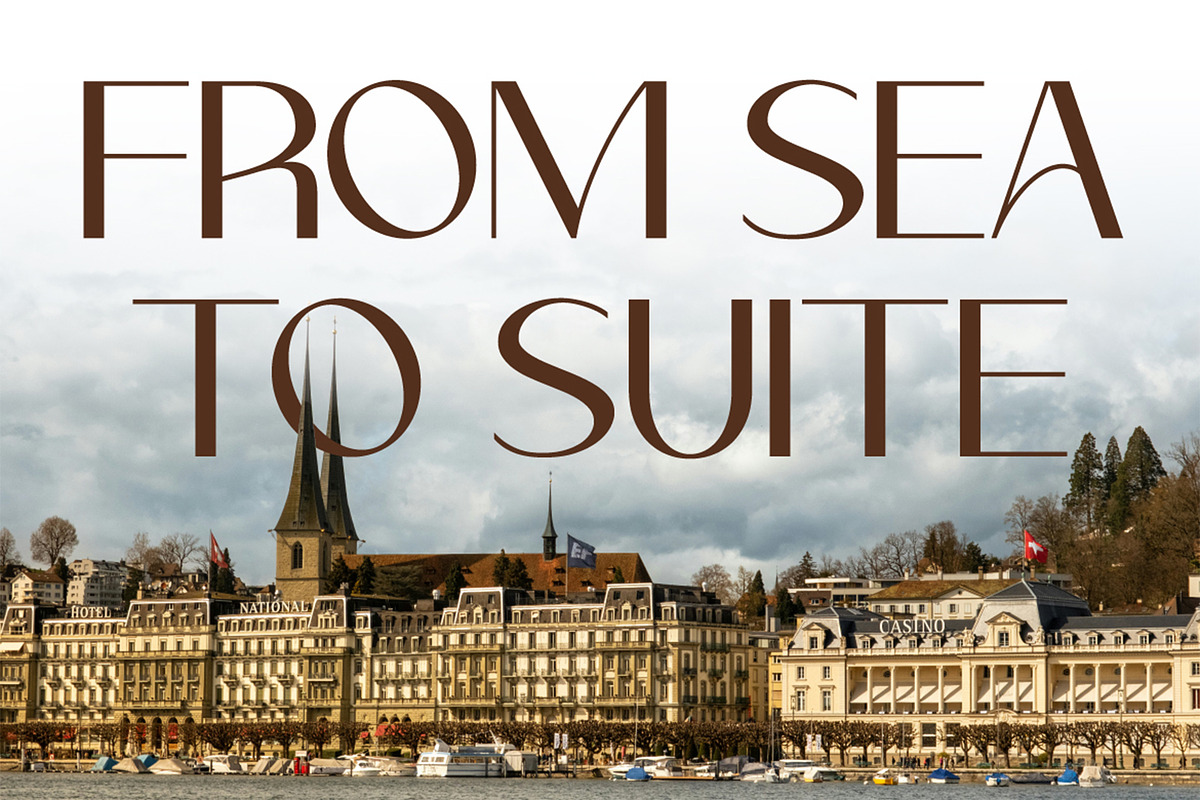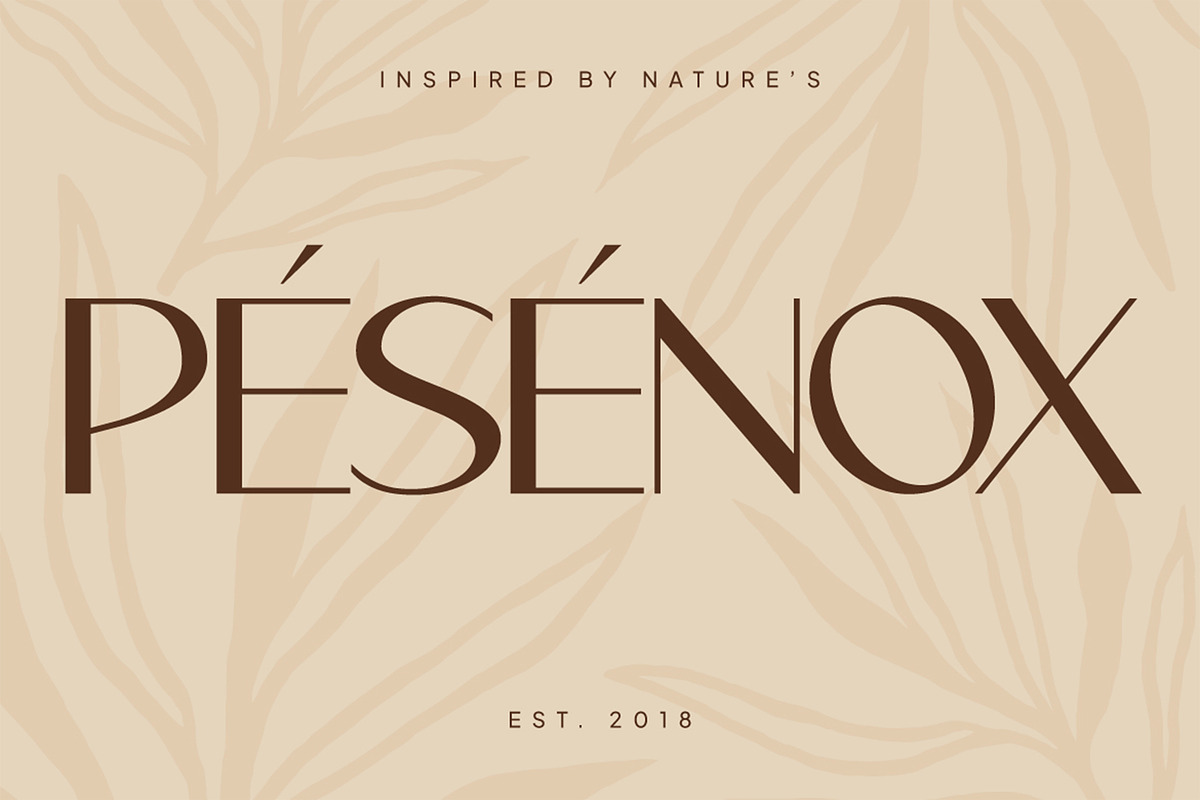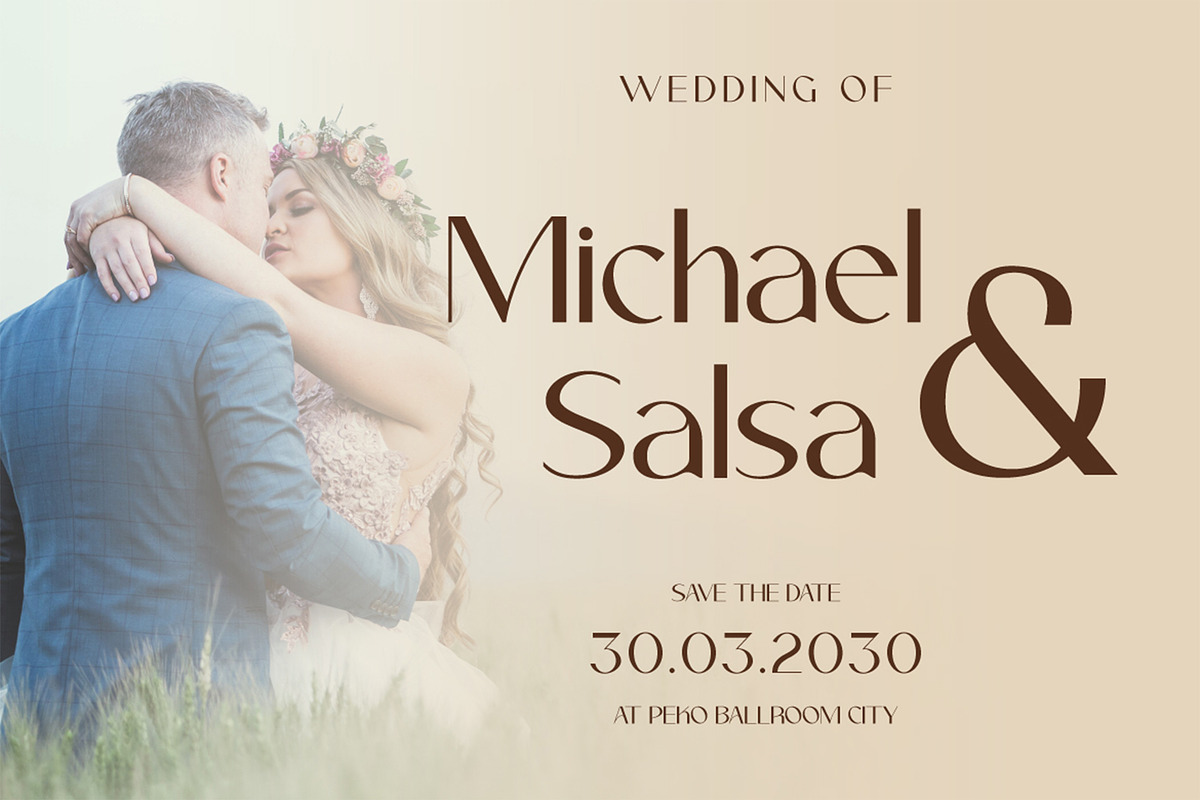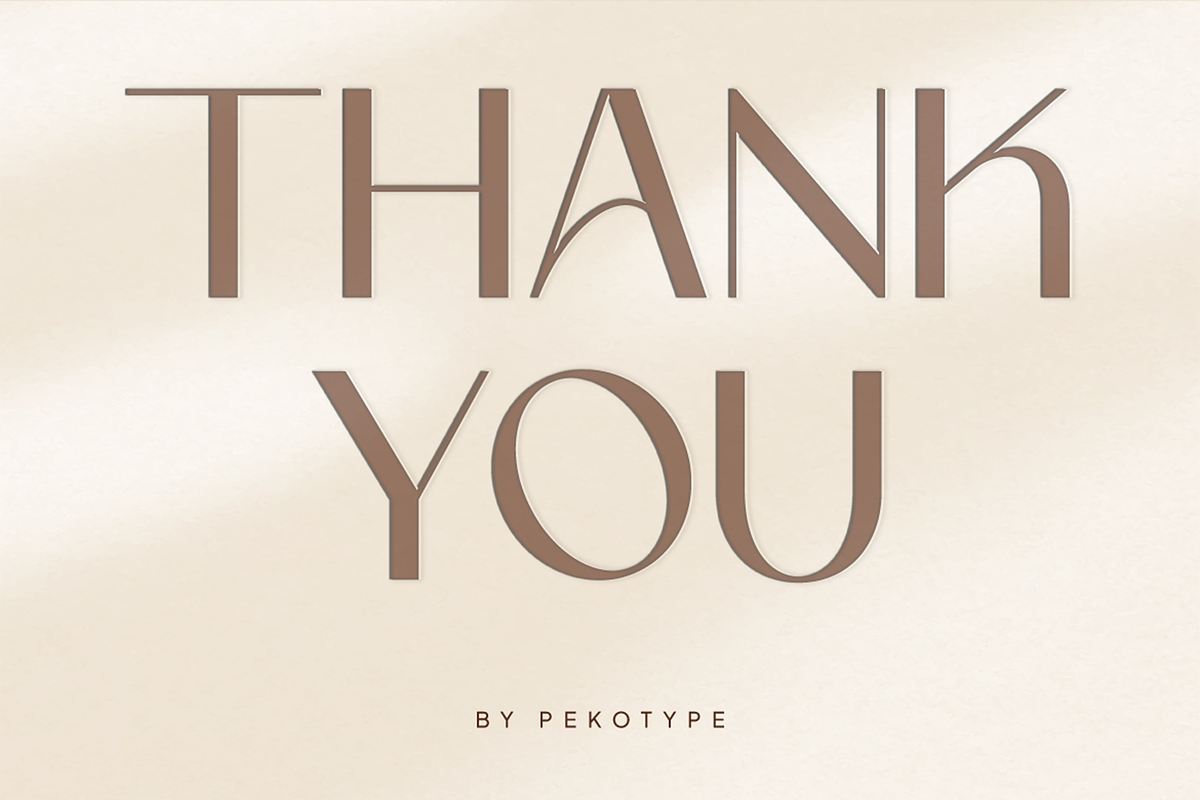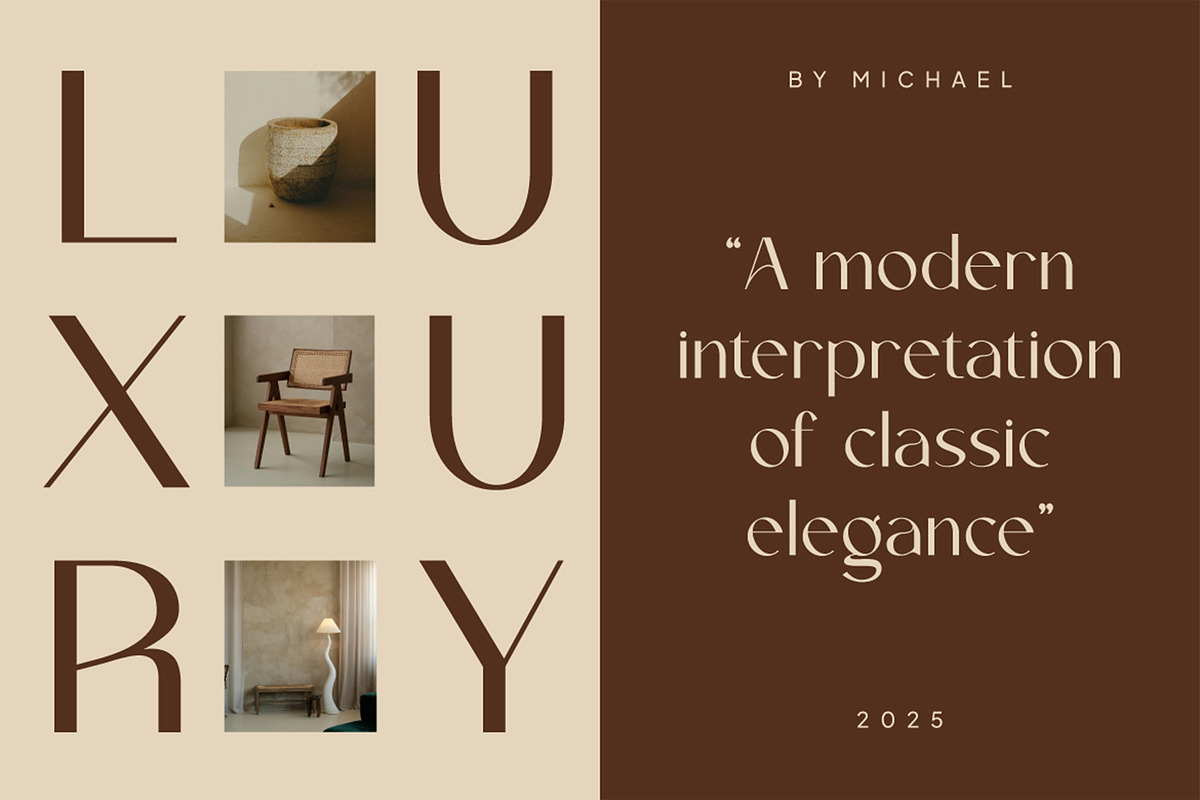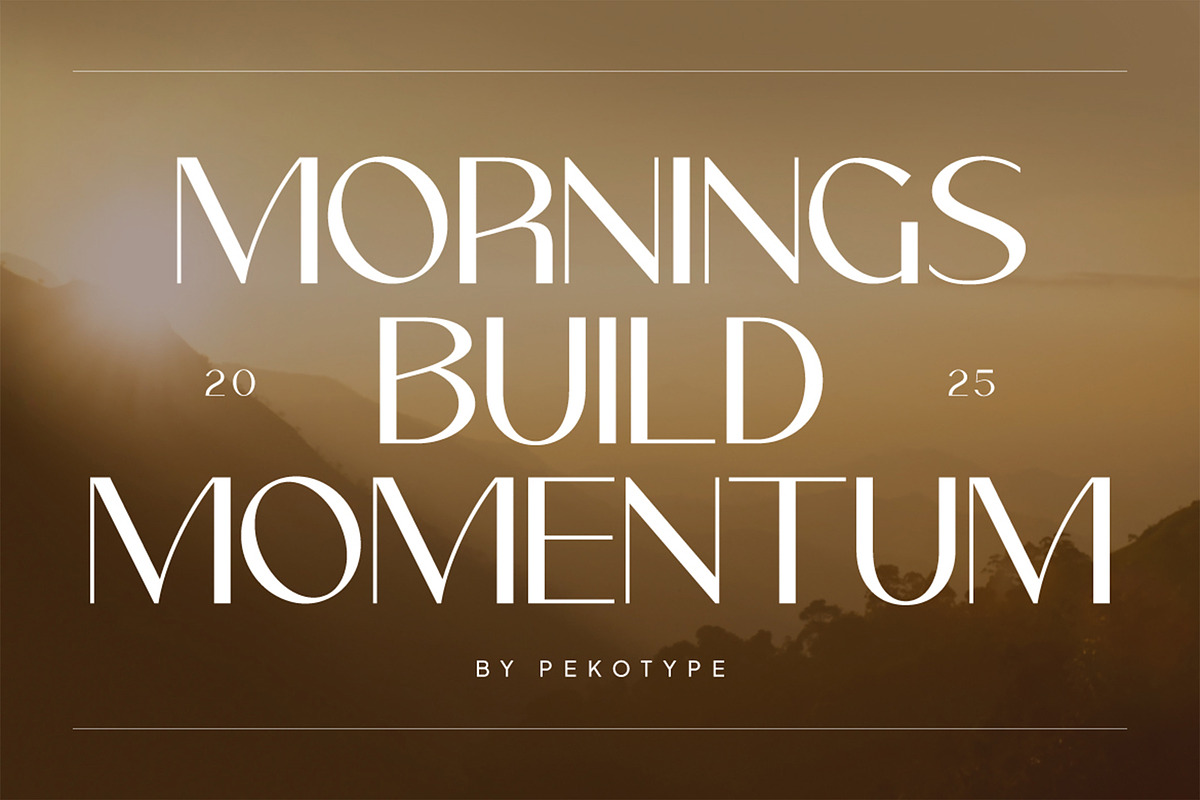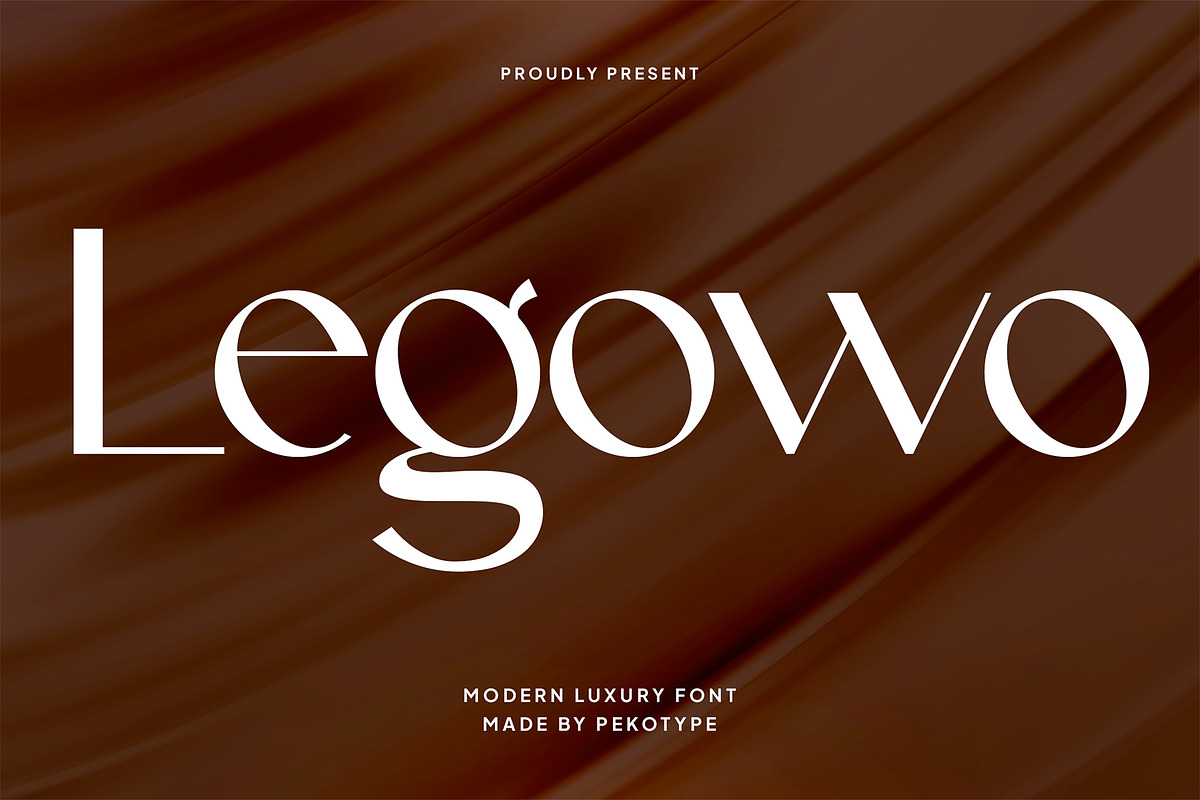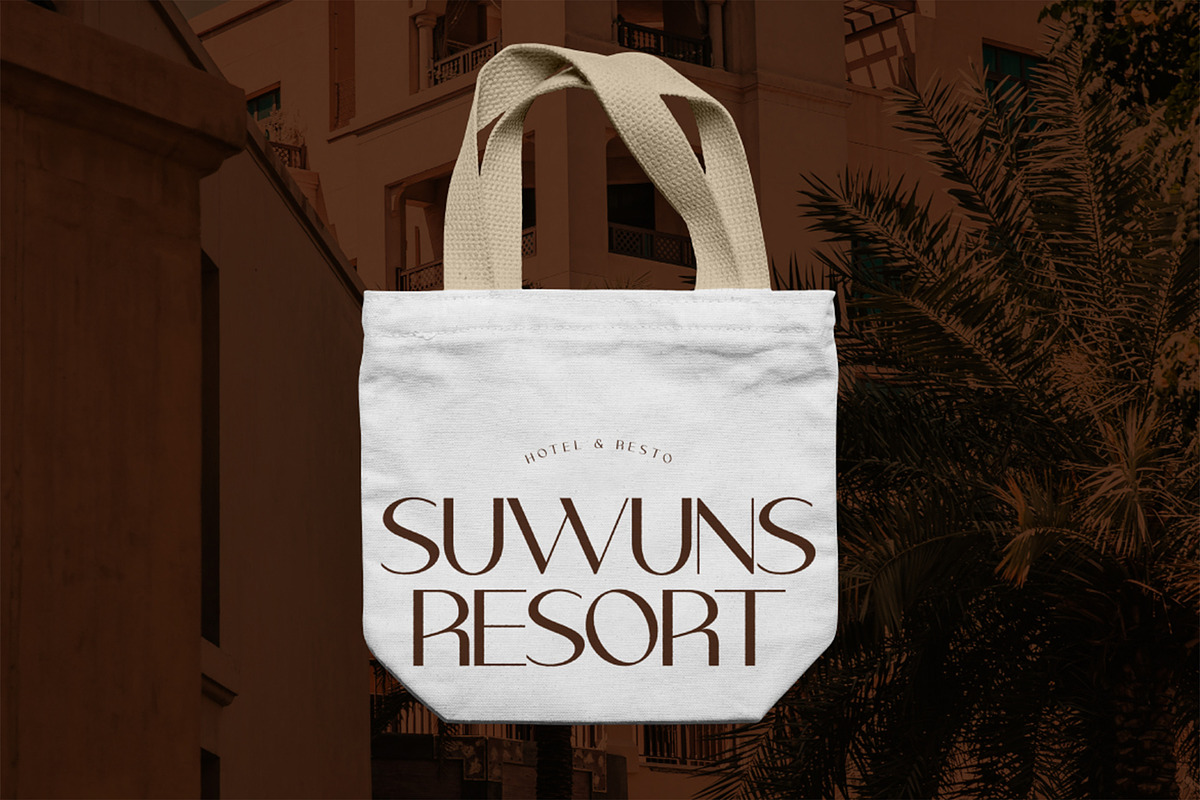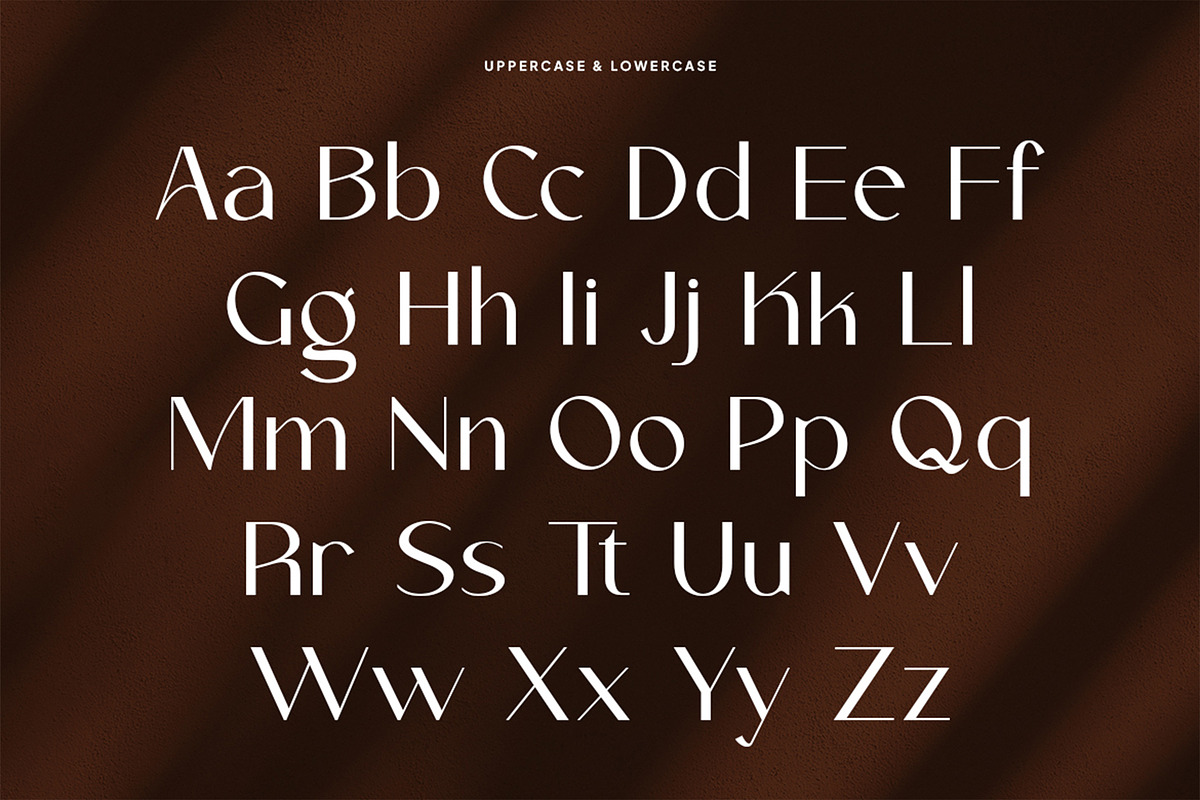
Legowo - Modern Elegant Font
Legowo – Modern Elegant Sans Serif with Timeless Elegance
Legowo is a modern luxury sans serif font that blends elegance, minimalism, and striking contrast in every letterform. Designed with sleek lines and refined proportions, Legowo adds a sophisticated edge to any project, making it perfect for high-end branding, stylish logos, editorial designs, promotional materials, and social media visuals.
Its unique contrast between thick and thin strokes creates a graceful yet powerful presence, making it ideal for brands that want to exude confidence and class. Whether used in large headlines or subtle subtext, Legowo ensures your message stands out with modern charm and timeless style.